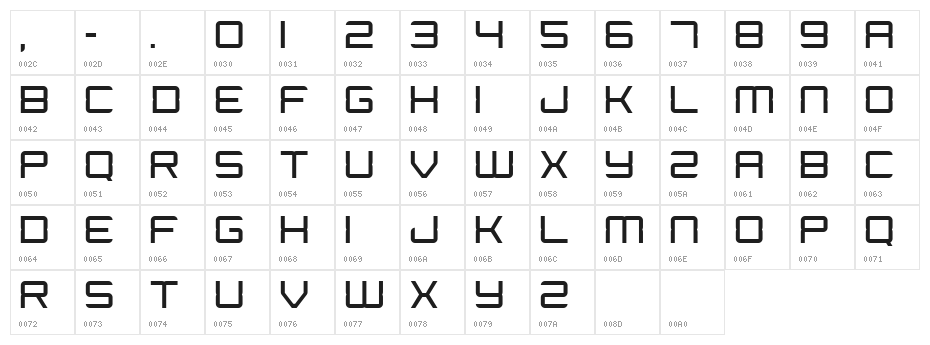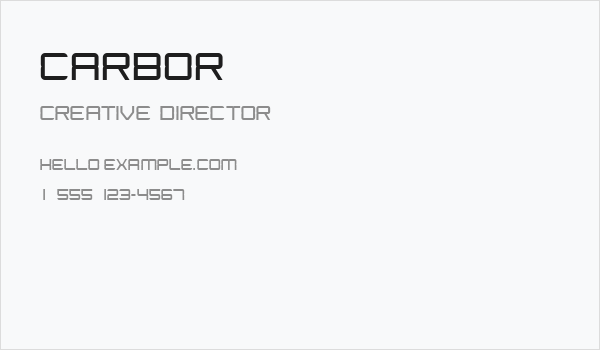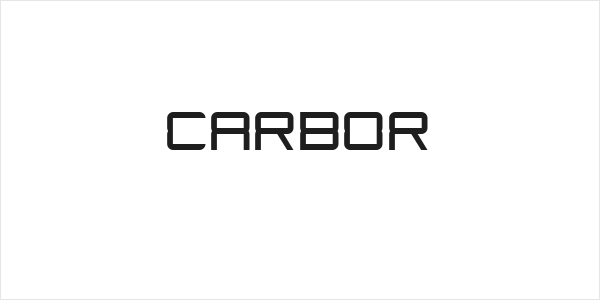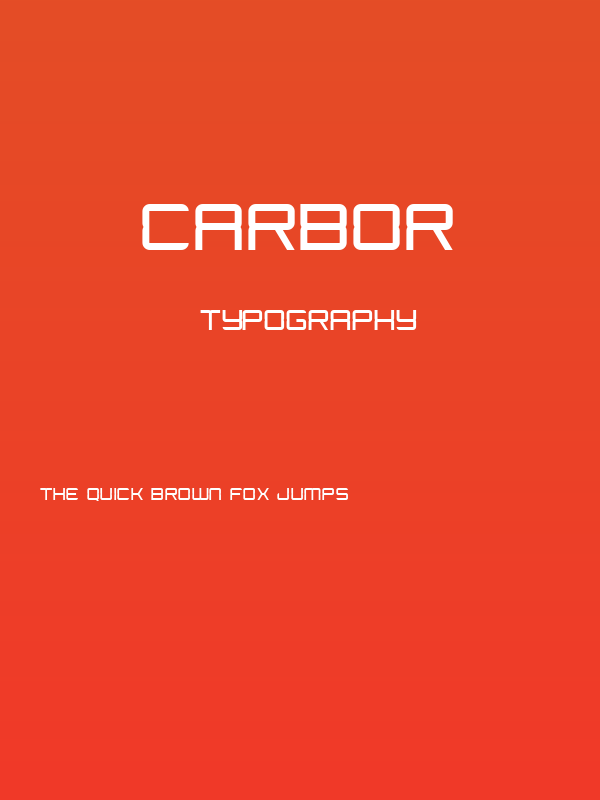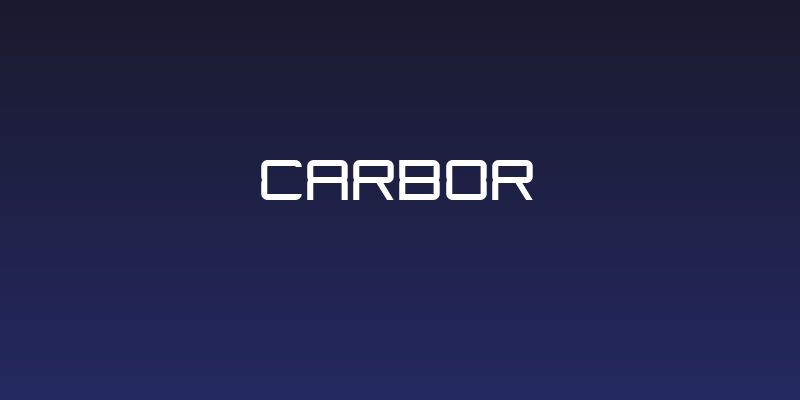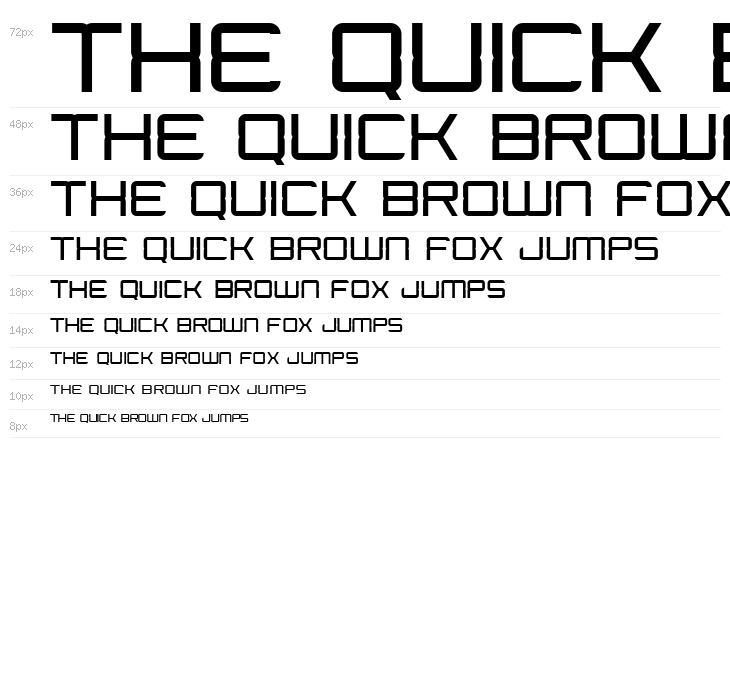
Carbor Font
Carbor Description
This font features a futuristic and geometric design, characterized by its clean lines and angular shapes. The letters are constructed with a consistent stroke width, giving it a uniform appearance. The uppercase and lowercase characters share a similar height, enhancing readability and creating a cohesive look. The numerals and special characters maintain the same design principles, ensuring a seamless integration with the alphabet. The overall style is modern and technical, suitable for projects that require a contemporary and innovative aesthetic.
| Use Case | Headlines, Logos, Digital interfaces |
| Proposed Projects | Ideal for technology branding, sci-fi themed designs, digital interfaces, and modern advertising. |